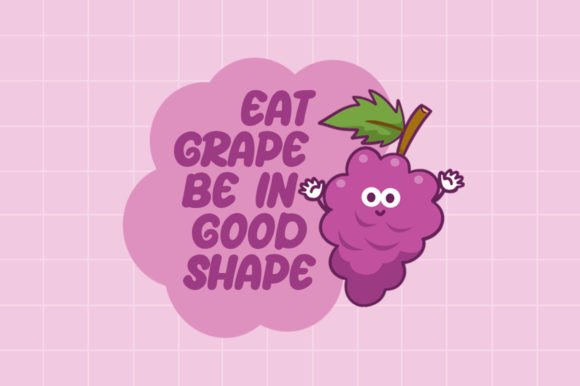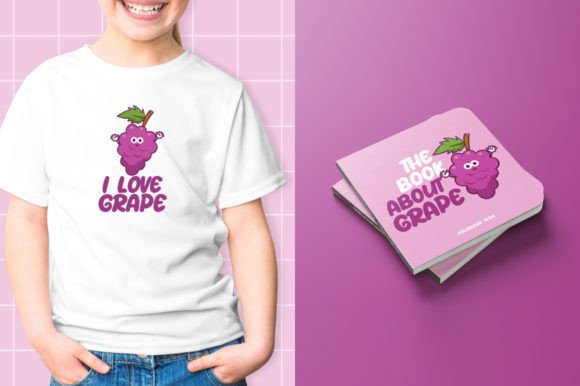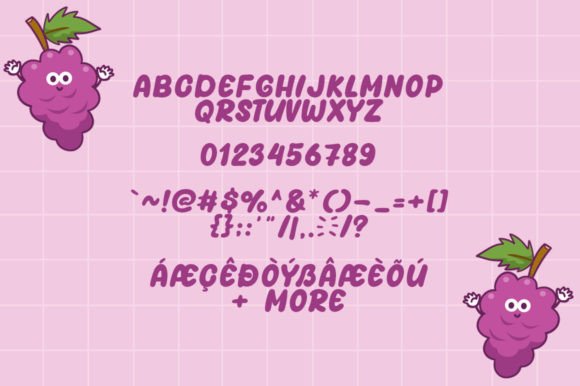
Introducing Grape Days Font: The Perfect Playful Companion for Your Designs!
Are you on the hunt for a font that adds a dash of fun and playfulness to your designs? Look no further than Grape Days Font! This delightful display font is specifically crafted to bring a cheerful vibe to your projects, making it an ideal choice for cartoon-related designs, children’s games, and any creative endeavor that could use a sprinkle of whimsy.
The Characteristics of Grape Days Font
Grape Days Font boasts a unique and quirky style that immediately captures attention. Its fun and cool display characteristics make it stand out from more traditional fonts, offering a fresh and modern appeal that’s hard to resist. Whether you’re working on a project for kids or simply want to infuse your design with a youthful energy, this font’s playful essence shines through in every letter.
One of the key advantages of Grape Days Font is its versatility. It’s not just limited to children’s books or game designs; it can be used across a wide range of projects that require a touch of playfulness. From crafting eye-catching posters and banners to designing engaging digital content, Grape Days Font can adapt to various design needs, ensuring your work stands out with a fun and inviting aesthetic.
For designers and crafters looking to leave a lasting impression on their audience, Grape Days Font offers the perfect solution. Its distinctive style not only adds visual appeal but also communicates a sense of fun and approachability. This makes it an excellent choice for branding projects aimed at a younger audience or for creating content that seeks to entertain and engage.
Why Choose Grape Days Font?
- Unique Style: Offers a fresh and playful look that can set your designs apart.
- Versatility: Suitable for a wide range of projects, from children’s games to digital content.
- Easy to Read: Despite its playful nature, Grape Days Font remains clear and readable, making it perfect for both titles and short texts.
- Fun and Engaging: Adds a cheerful touch to your designs, ensuring they capture and retain the audience’s attention.
How to Use Grape Days Font Effectively
To make the most out of Grape Days Font, consider the following tips:
- Mix and Match: Combine it with other fonts for contrast, using Grape Days Font for headings and a simpler font for body text.
- Play with Colors: Enhance the playful vibe of the font with bright and contrasting colors.
- Experiment with Sizes: Use larger sizes for titles and smaller sizes for supporting text to create visual hierarchy.
Grape Days Font is more than just a display font; it’s a tool to bring your designs to life with a playful and fun touch. Whether you’re a designer, crafter, or simply someone who loves to dabble in creative projects, this font offers a world of possibilities. With its unique style, versatility, and engaging appeal, Grape Days Font is poised to become your go-to choice for projects that demand a bit of whimsy and a lot of charm.